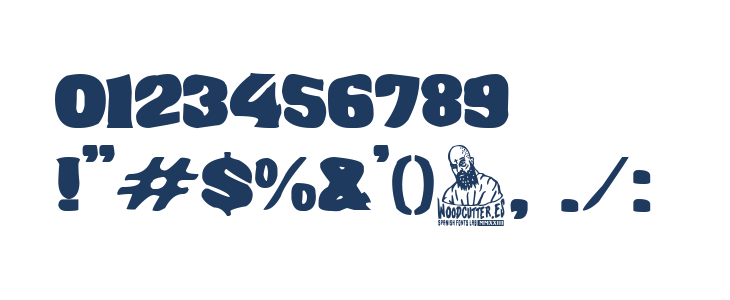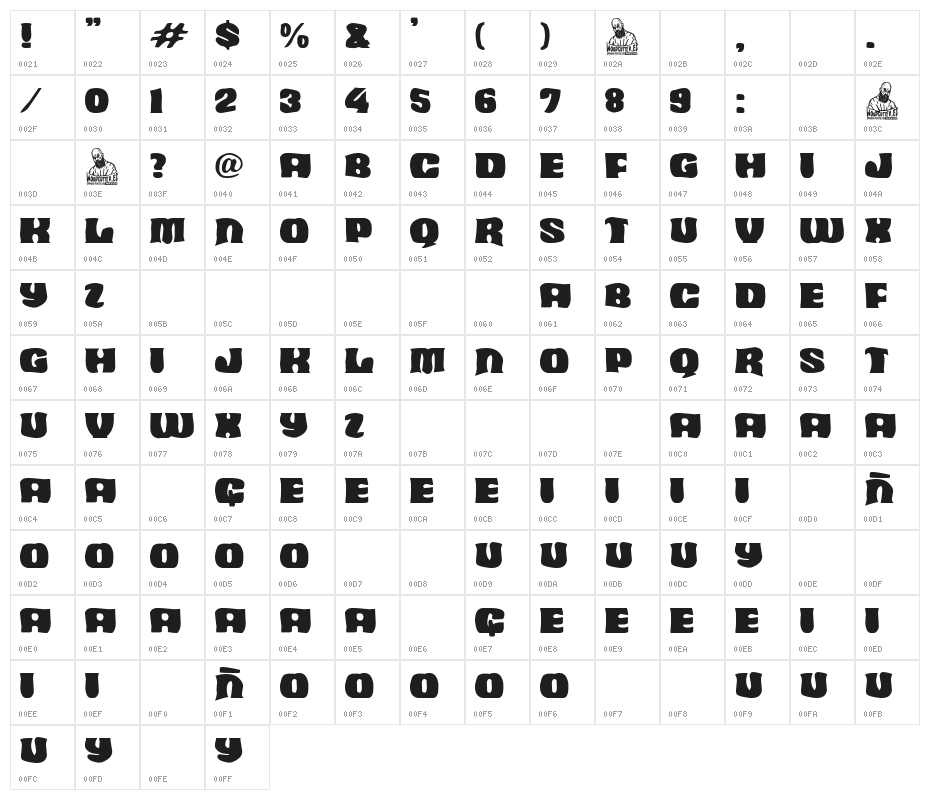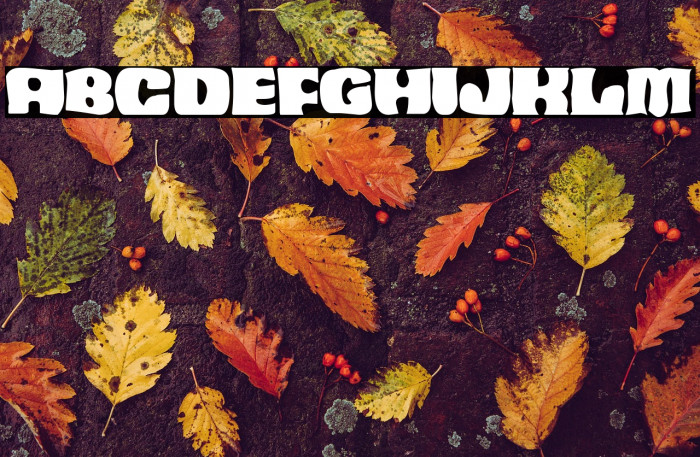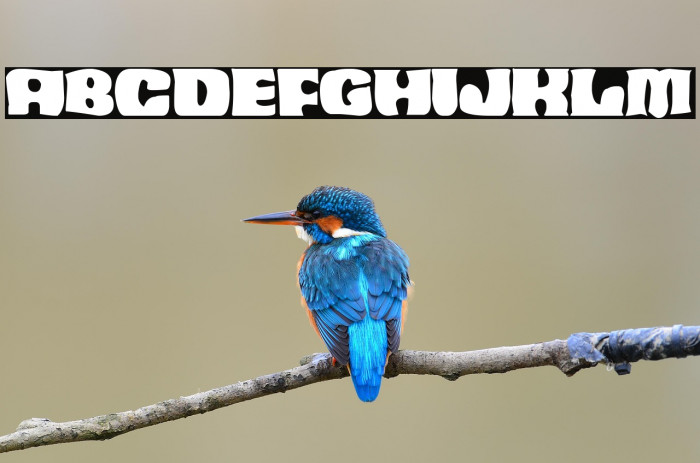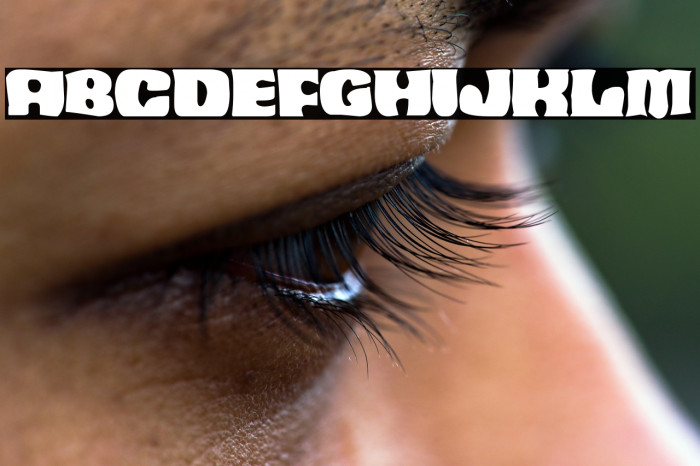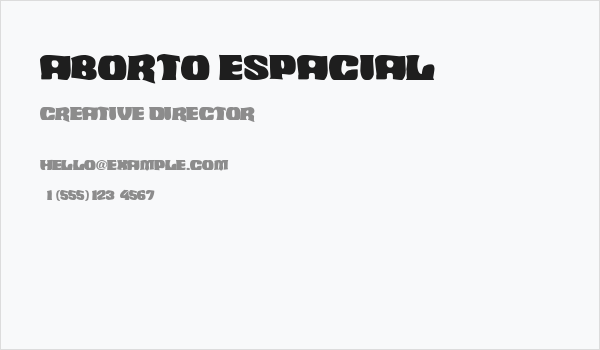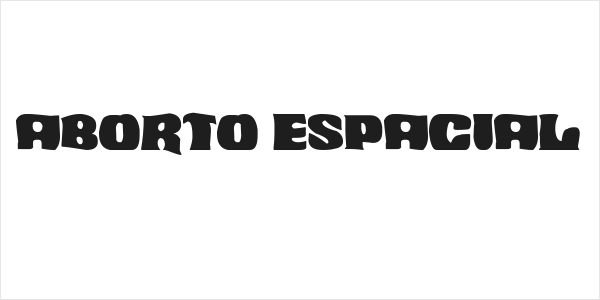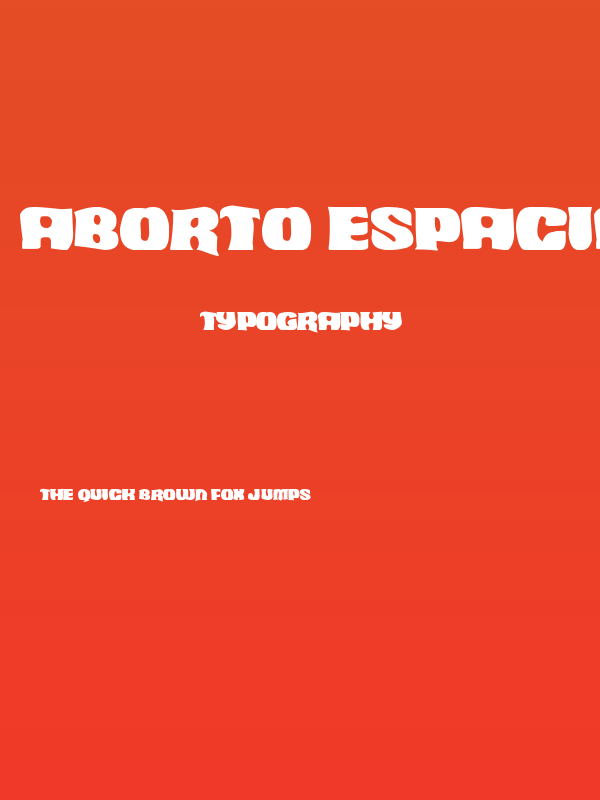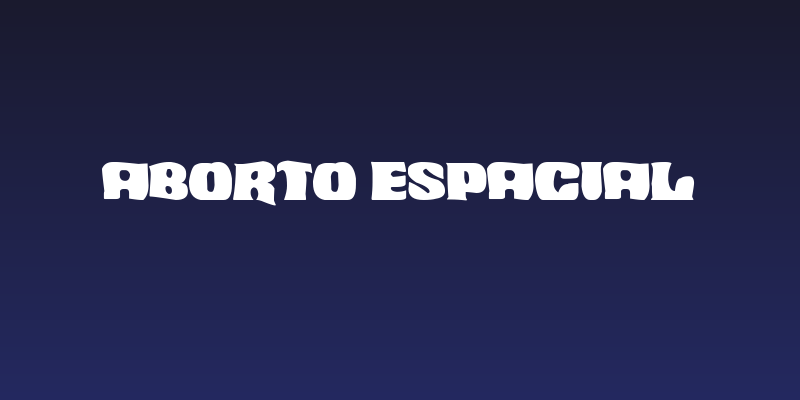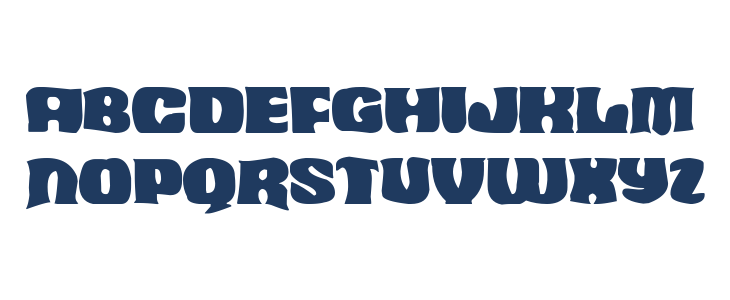
Aborto Espacial Font
Aborto Espacial Description
This font features a bold and playful design with a unique, quirky style. The characters are heavily stylized with exaggerated curves and uneven edges, giving it a whimsical and cartoonish appearance. The uppercase and lowercase letters maintain a consistent weight, creating a cohesive look across the alphabet. Numbers and special characters are equally bold, ensuring they stand out in any design. The font's overall aesthetic is reminiscent of retro or vintage comic styles, making it ideal for projects that require a fun and eye-catching typeface.
| Overall Style | Retro, Cartoonish, Playful |
| Proposed Projects | Ideal for comic books, children's books, playful branding, posters, and retro-themed designs. |